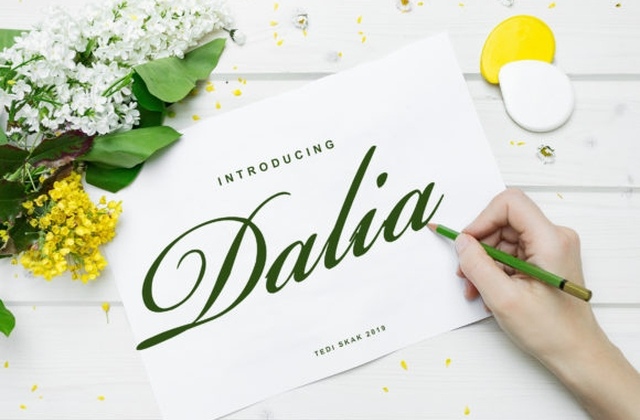
Dalia Font
Dalia Font is perfect for various design applications including botanical garden signage, floral design studio branding, garden center materials, flower shop logos, botanical art exhibitions, nature-inspired wellness brands, organic beauty product packaging, flower arrangement workshops, garden party invitations, and blooming lifestyle communications. This elegant typeface excels in projects requiring natural beauty and floral sophistication that captures the delicate grace and vibrant life of blooming flowers and botanical elegance.
What makes Dalia Font so exciting is its graceful embodiment of floral beauty and botanical sophistication through letterforms that suggest the elegant curves of flower petals and the organic growth patterns of beautiful gardens. The font features flowing organic construction that mirrors natural plant forms, refined proportions that communicate both delicacy and strength like resilient flowers, and distinctive character details that evoke the intricate beauty of botanical illustrations and the careful artistry of floral design. Its distinctive floral character and botanical appeal make it perfect for nature-focused brands seeking to communicate organic beauty, natural wellness, and the timeless appeal of botanical elegance and floral artistry.
Dalia Font family includes elegant weights and botanical variations that enhance its versatility for different floral applications. Each style maintains the font's signature natural character while providing options for various botanical design approaches. The family also features floral decorative elements, botanical flourishes, and garden-inspired ornaments that can be combined with the letterforms to create cohesive natural beauty design systems.
Whether you're developing botanical brands, floral services, or nature-inspired communications, Dalia Font Free Download provides elegant typography that celebrates the natural world and honors the delicate beauty of flowers and botanical artistry. This typeface transforms ordinary communications into blooming statements that promise natural beauty and organic elegance. The font's floral appeal makes it particularly effective for flower shops, botanical gardens, and nature-focused businesses targeting audiences who appreciate natural beauty and floral sophistication.
Dalia Font stands out by delivering authentic botanical beauty that feels genuinely connected to natural floral elegance rather than artificial nature theming. Its carefully crafted organic proportions and botanical details ensure that designs feel authentically connected to flower garden traditions and botanical artistry. From floral design branding to botanical garden materials, this font provides designers with tools to create communications that celebrate natural beauty and inspire appreciation for floral elegance through graceful, flower-inspired typography that blooms with authentic botanical sophistication.